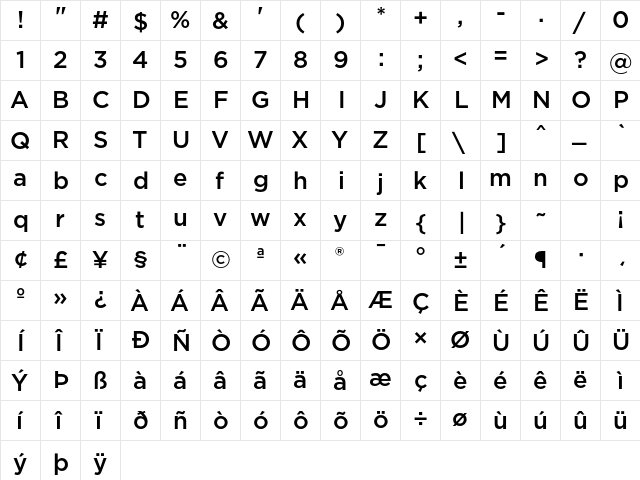
Gotham Medium
| Foundry | Hoefler & Frere-Jones |
| Designer | Tobias Frere-Jones |
Design Context for Gotham Typeface
Gotham is a composed and adaptable typeface that performs quietly and consistently across a wide range of design contexts.
Pro Tip: Pair Gotham with a font of contrasting weight or personality to build a more expressive typographic hierarchy.